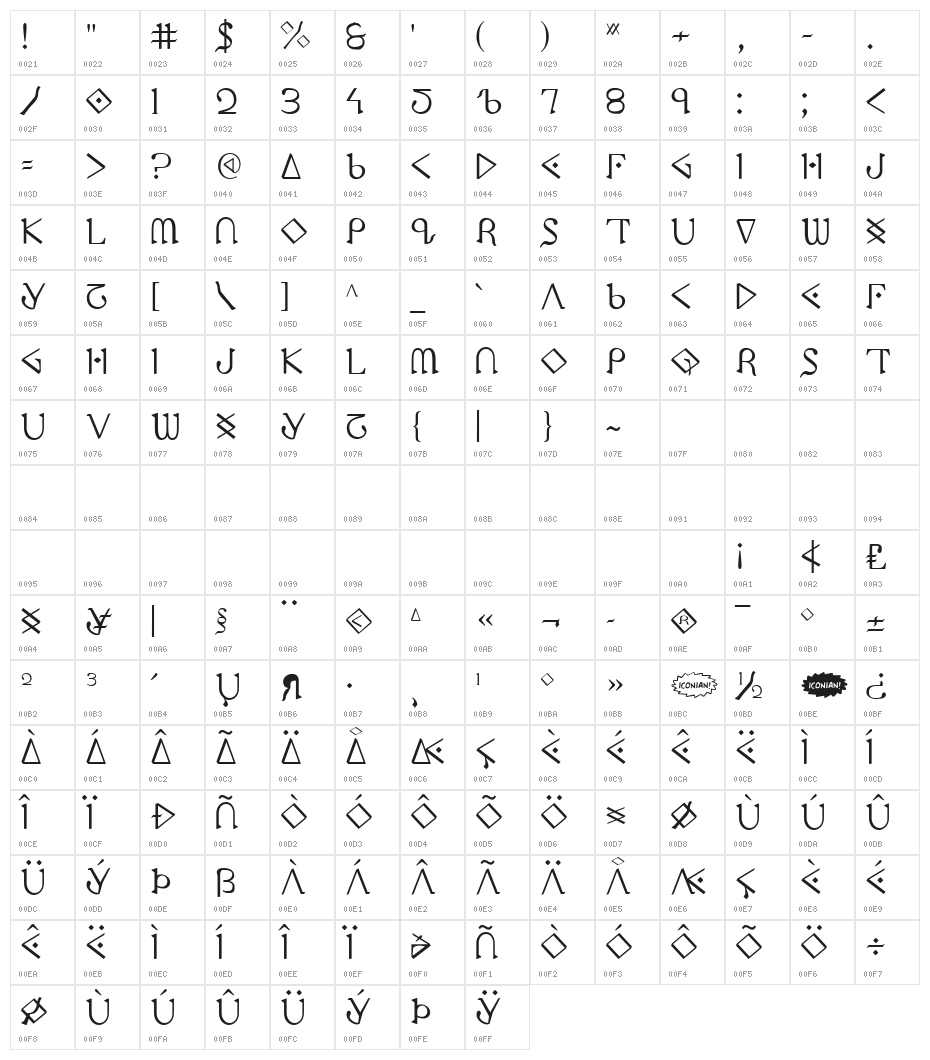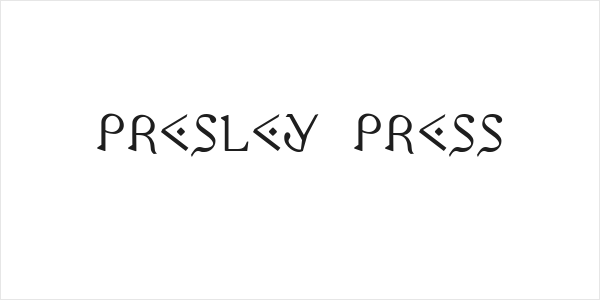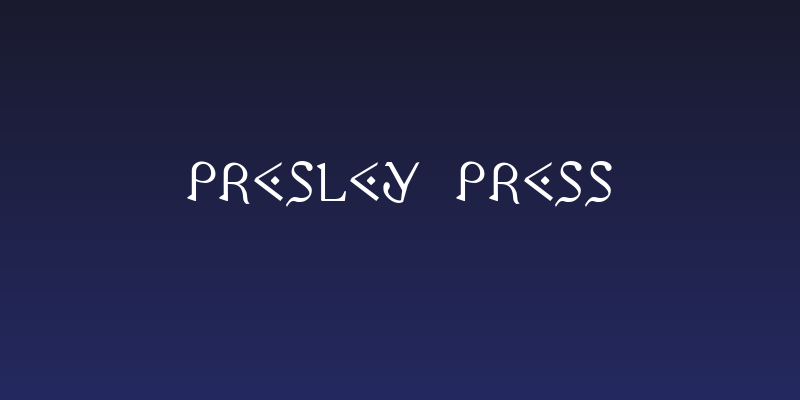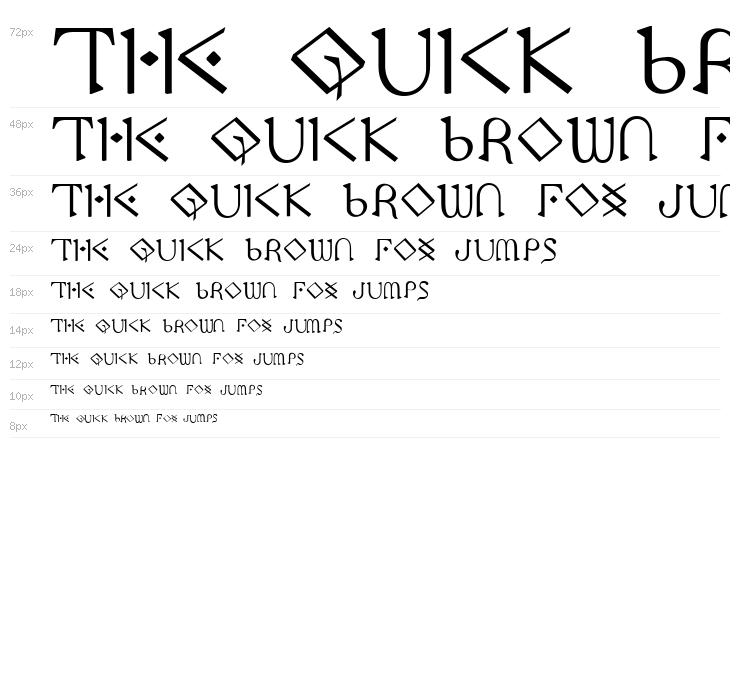
Presley Press Font
Presley Press Description
This font features a unique and artistic design, characterized by geometric shapes and sharp angles. The uppercase letters have a distinct, almost futuristic appearance, with some characters incorporating triangular and diamond-like elements. The lowercase letters maintain a consistent style, echoing the angular theme while offering a slightly softer look. Numbers are similarly stylized, with a bold presence that complements the overall design. Special characters are creatively integrated, maintaining the geometric and angular motif. This font stands out with its decorative and modern aesthetic, making it suitable for projects that require a bold and distinctive visual impact.